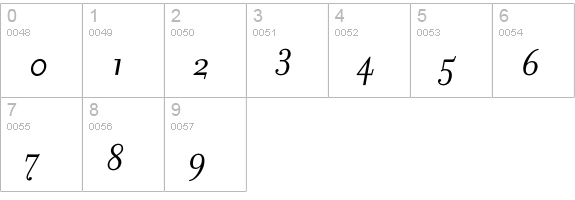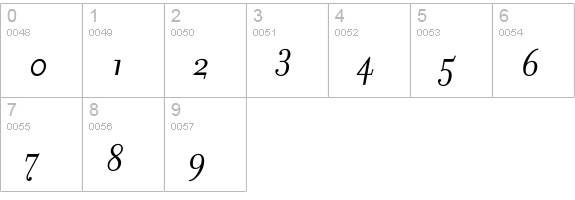
FilosofiaItalic Font Details
FilosofiaItalic is a stylish and elegant font that exudes sophistication and charm. Its italicized design adds a touch of flair to any project, making it perfect for creative endeavors such as invitations, branding, and editorial design. The graceful curves and flowing lines of FilosofiaItalic give it a timeless and classic appeal, while still maintaining a modern edge. What sets FilosofiaItalic apart is not just its beauty, but also its accessibility. This font is available for free download at FontsMarket.com, making it easy for anyone to add a touch of luxury to their designs without breaking the bank. Whether you're a seasoned designer looking to elevate your work or a hobbyist wanting to experiment with new styles, FilosofiaItalic is a versatile and stunning choice that won't cost you a penny. Download it now and let your creativity soar with this exquisite typeface.